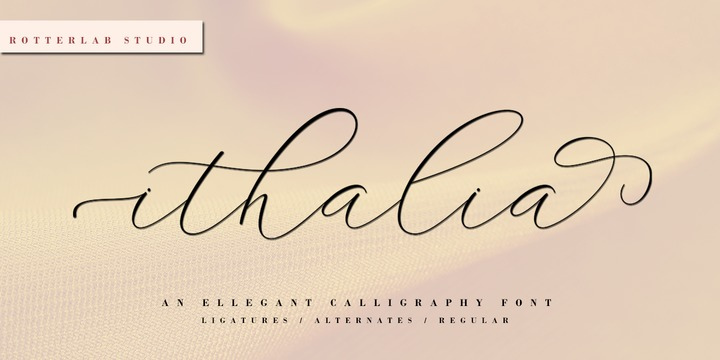
Ithalia Script Font
Ithalia Script Font is perfect for Italian restaurant branding, Mediterranean cuisine marketing, romantic wedding invitations, luxury travel advertising, elegant fashion campaigns, sophisticated wine labeling, cultural heritage communications, and authentic Italian lifestyle promotions.
What makes Ithalia Script Font exciting is its Italian elegance that embodies the passionate sophistication and cultural refinement of Italian heritage with romantic authenticity and Mediterranean charm. The font features flowing letterforms with Italian-inspired curves and cultural character variations that evoke handwritten love letters, Tuscan vineyards, and the artistic beauty of Italian calligraphy and cultural expression. Its distinctive Italian styling and romantic appeal communicate passion, culture, and Mediterranean sophistication, making every message feel written with Italian passion and touched by the elegant beauty of Italian artistic tradition and cultural refinement.
The Ithalia Script Font family includes regular weight with uppercase and lowercase letters, numerals, punctuation marks, and special characters. Premium versions often feature stylistic alternates and Italian flourishes that enhance the romantic, cultural aesthetic perfect for Italian and Mediterranean applications.
This elegant cultural typeface brings instant authenticity and Italian credibility to any Mediterranean-focused project. Ithalia Script Font Free Download delivers exceptional results for Italian businesses and Mediterranean organizations seeking to communicate cultural authenticity, Italian elegance, and romantic sophistication to food enthusiasts and cultural appreciators.
The passionate character of Ithalia Script Font makes it particularly valuable for Italian restaurants, Mediterranean tourism operators, and cultural heritage organizations. Its excellent readability ensures cultural messaging and Italian communications remain clear while maintaining the distinctive Mediterranean aesthetic that appeals to customers seeking authentic Italian experiences and cultural sophistication.
Italian cultural marketers appreciate how Ithalia Script Font effortlessly conveys Mediterranean authenticity and Italian passion. The font's flowing proportions and cultural details create beautiful brand materials that establish emotional connections with audiences who value Italian culture, Mediterranean lifestyle, and the passionate expression of Italian heritage and romantic elegance.
The versatile passion of this typeface extends to Italian wine marketing, Mediterranean cooking education, and cultural tourism where Italian authenticity enhances cultural credibility and romantic appeal. Ithalia Script Font Free Download provides creative professionals with an essential tool for developing memorable, culture-driven designs that resonate with audiences who embrace Italian heritage, Mediterranean culture, and the flowing elegance of Italian script in their culinary and cultural experiences.